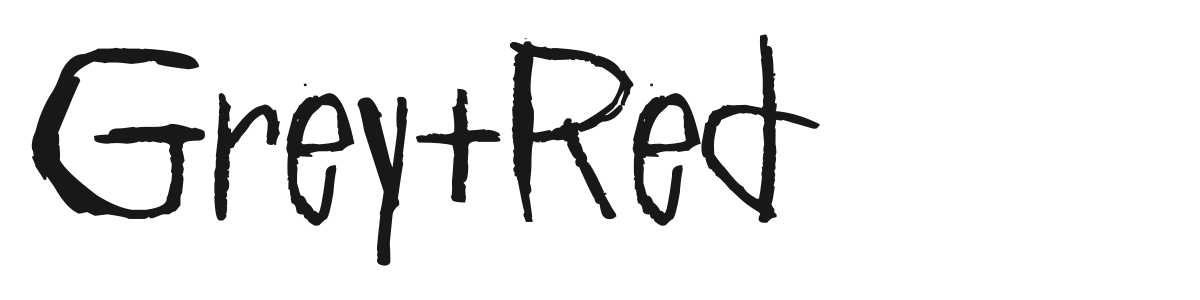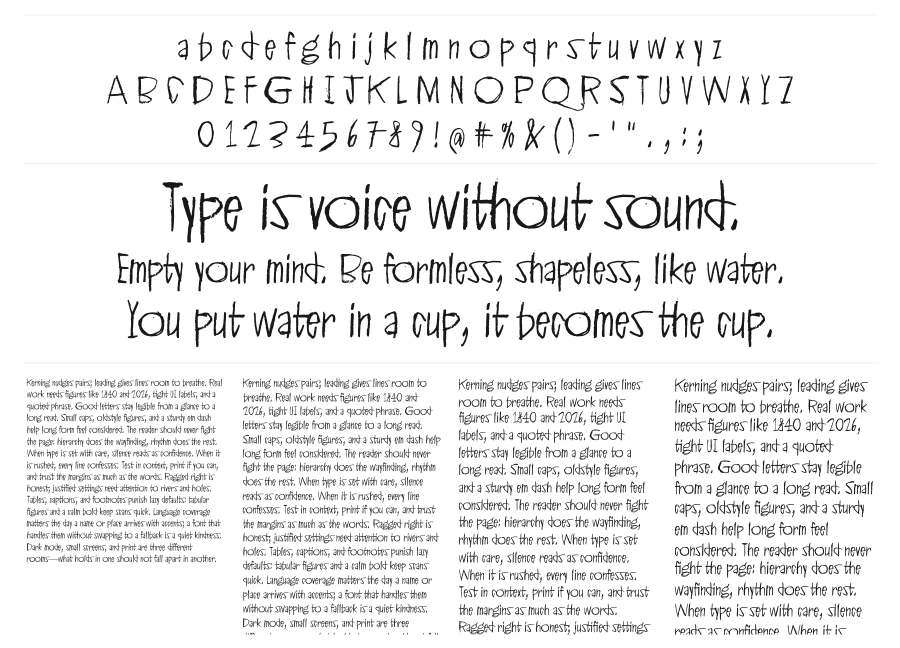
Grey+Red
Grey+Red is a casual handwritten sans from junkohanhero with a loose, scratchy texture and natural irregularity. Every stroke carries the slight wobble and imperfection of a real pen, keeping it warm and human without tipping into novelty. It works well at large sizes where the hand-drawn character can breathe.